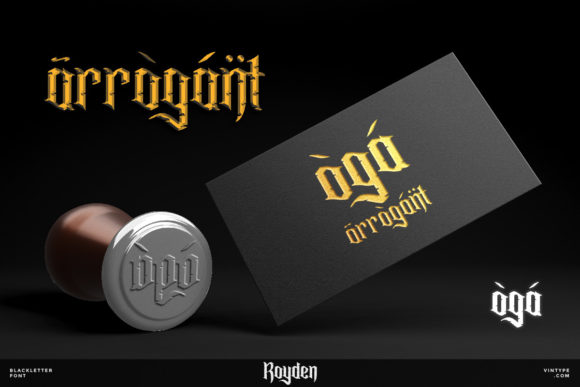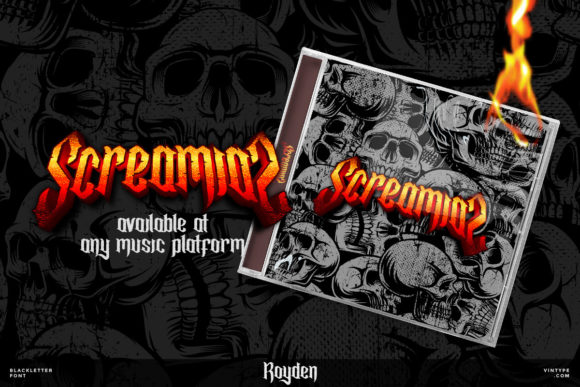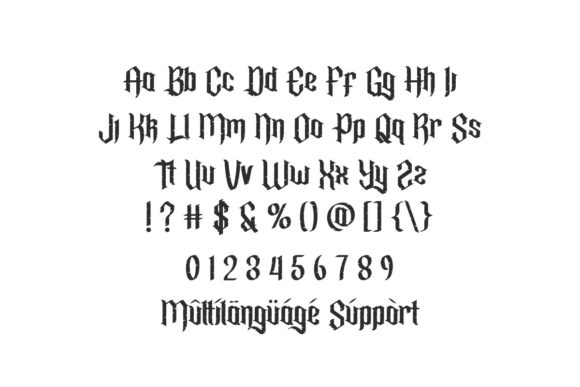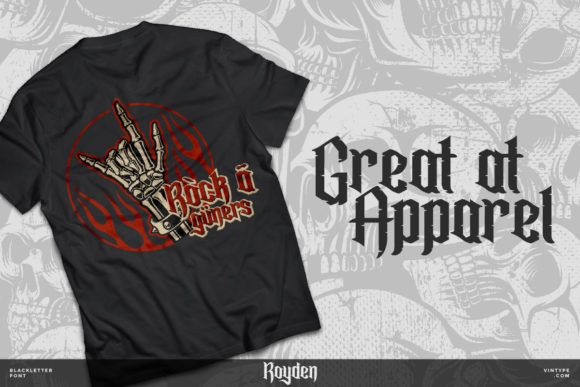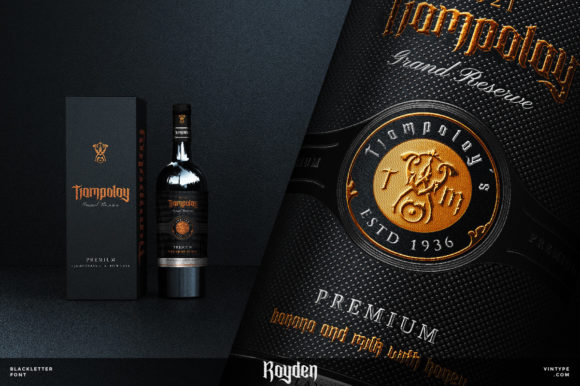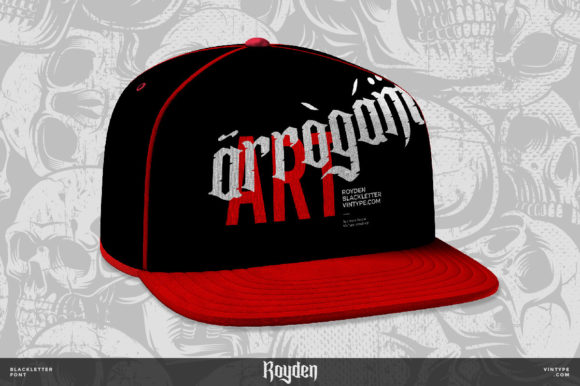
Introduction to Royden Font
Royden is a rough textured, bold and cool blackletter font.
Whether youโ€™re looking for fonts for Instagram or calligraphy scripts for DIY projects, this font will turn any creative idea into a true piece of art .
Royden Font offers exceptional quality and versatility, making it a valuable addition to your design toolkit. Whether you’re creating for personal projects or commercial use, Royden Font delivers professional results.